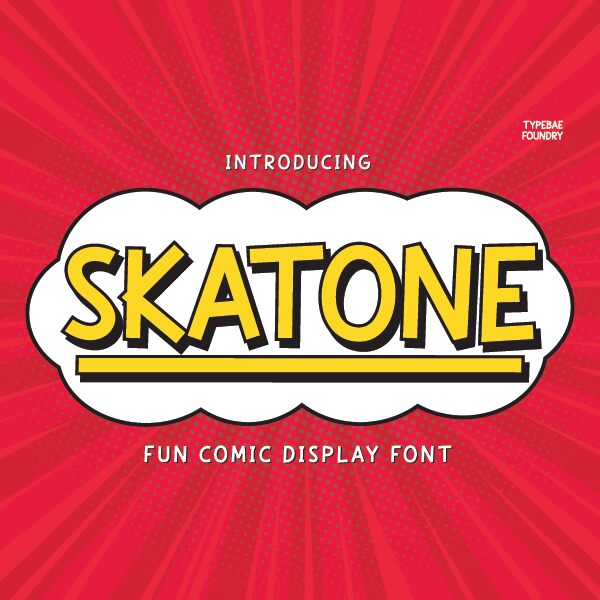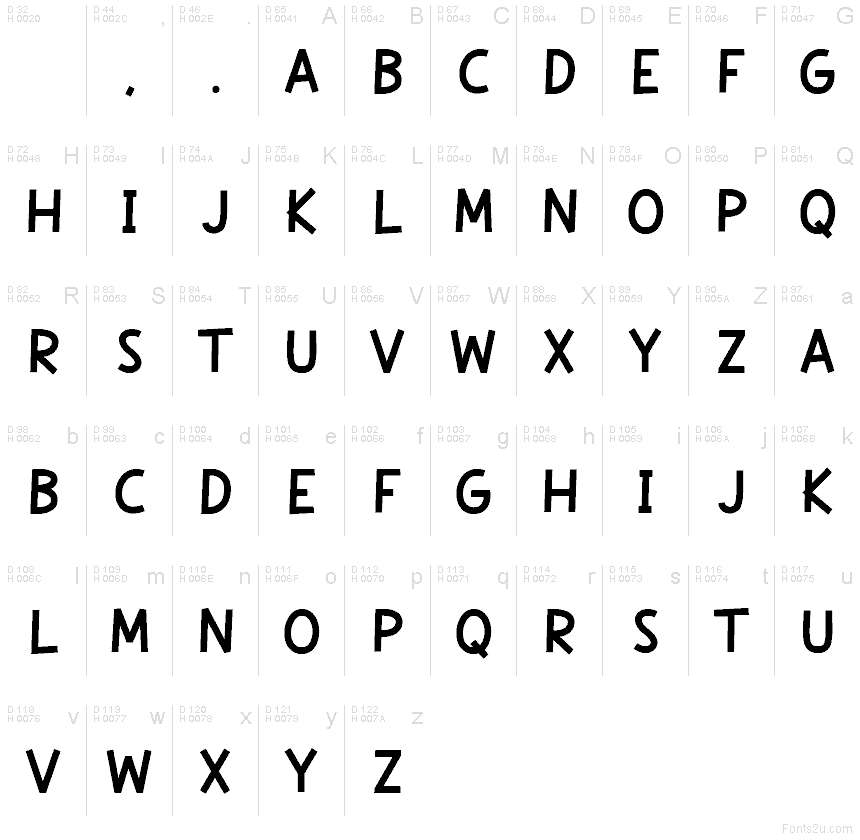
Skatone
Skatone font by Typebae Foundry is a free comic display typeface with the jittery energy of hand-scrawled marker lettering. Its tall, slightly crooked shapes, rough edges, and loose spacing feel like they’ve been scratched onto a grungy zine cover or the grip tape of a skateboard. The letters wobble just enough to feel human and spontaneous, giving headlines a scrappy, streetwise charm without becoming unreadable.
Using Skatone, you can bring that raw, DIY attitude to posters, zines, gig flyers, skate or streetwear graphics, YouTube thumbnails, stickers, and bold social posts. This free font works best when you let it go big and loud, then support it with a clean sans serif for smaller text. Keep colors punchy and high contrast to amplify its rough comic vibe and let every uneven stroke show.